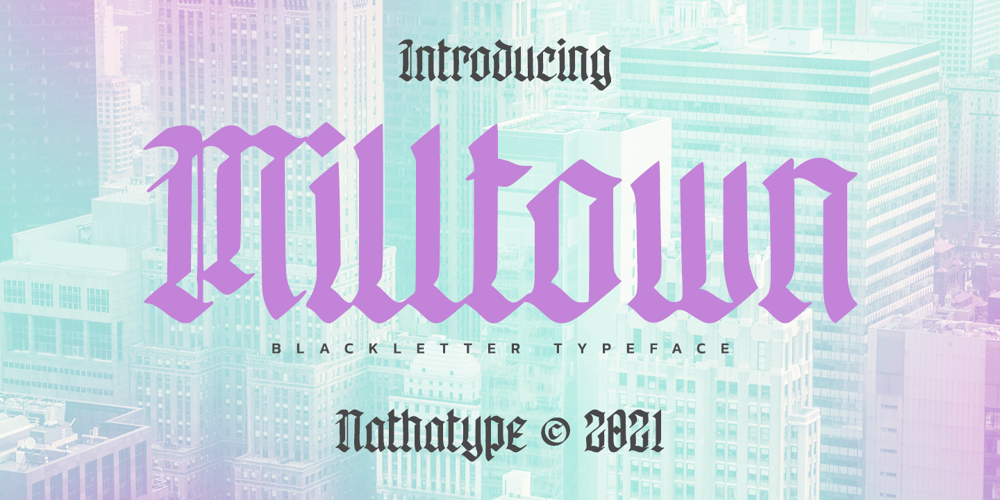
Milltown Font Family was designed by Donis Miftahudin and published by Nathatype. Milltown contains 1 styles and family package options. Looking for a font that’ll make your branding sparkle? A versatile, modern, and happy font? Here we are.Milltown-A Blackletter Font Milltown modern blackletter font, This font is made with references to various letters that we combine and design with our style. This font is great and useful for product logo, poster title, headline, packaging, badge, wedding card logo, clothing brand logo, Vintage design and much moreOur font always includes Multilingual Support to make your branding reach a global audience. Inspire your audience, clients, or guests with this beautiful, statement font. Features: PUA Encoded Numerals and Punctuation Thank you for downloading premium fonts from Natha Studio